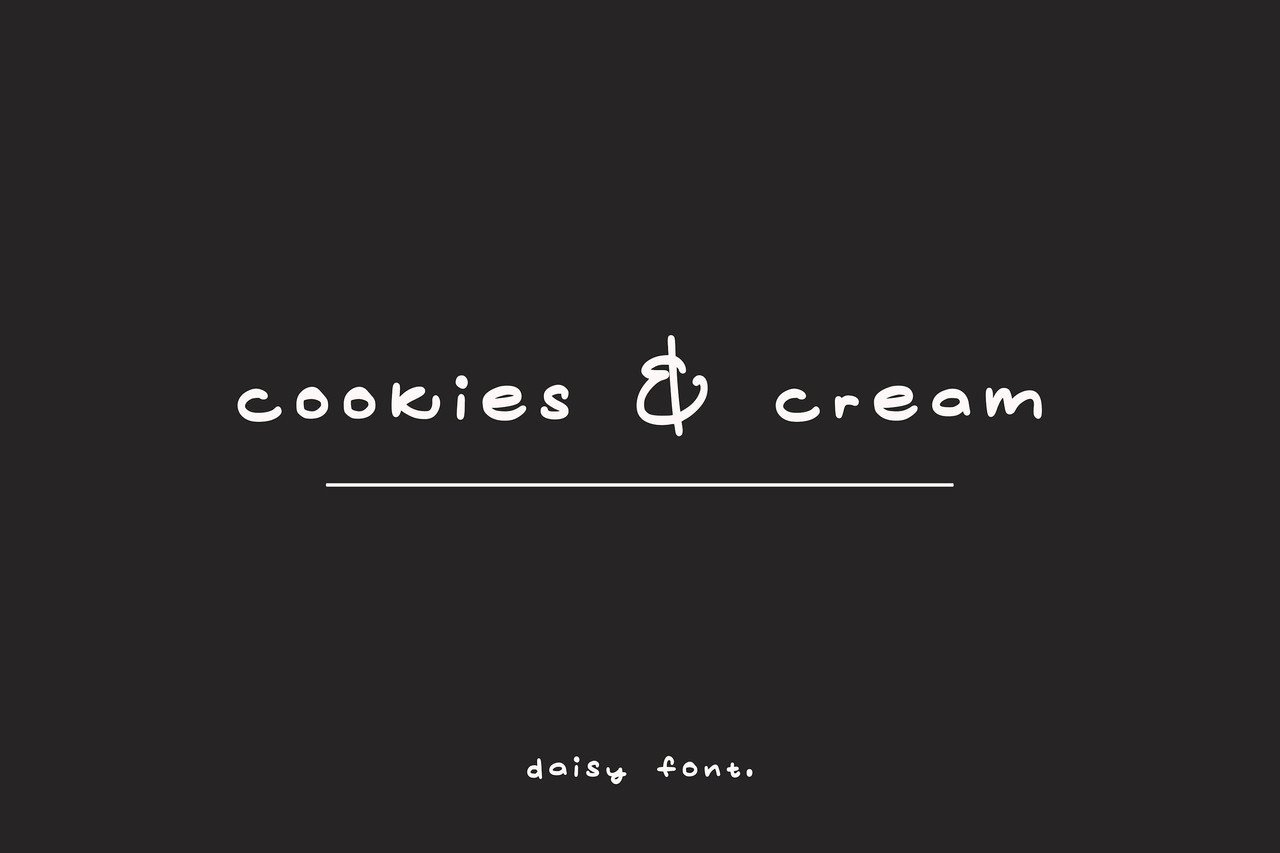
***Daisy is a quirky, whimsical handwritten font**, crafted to add an edge of personality and softness to your designs.* ***For the wanderer, the romantic and the hopeful.***